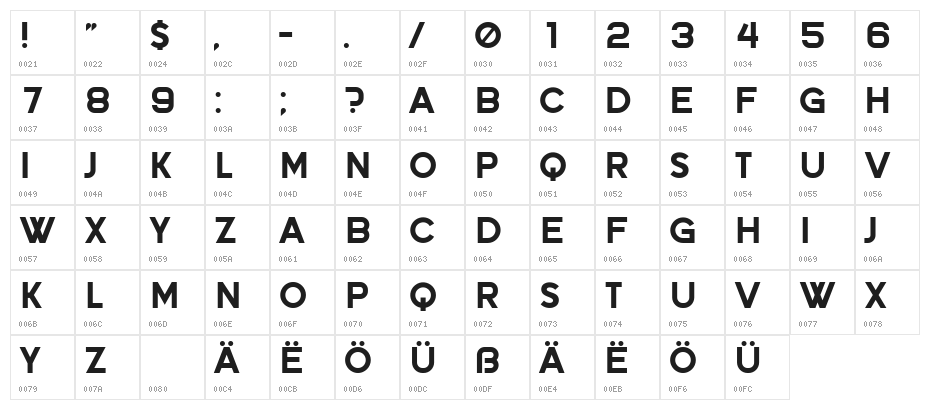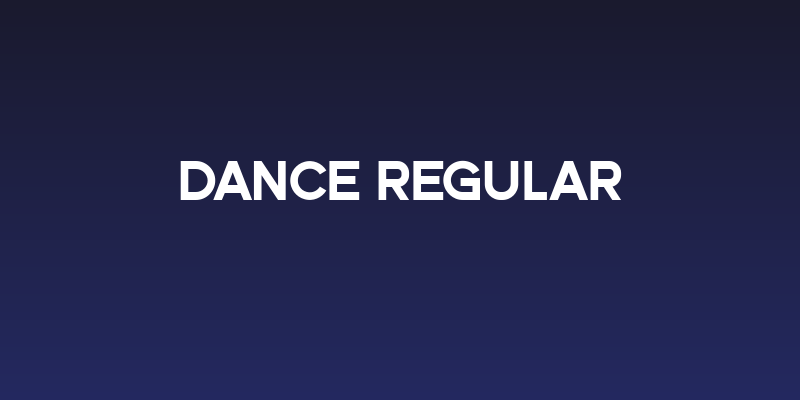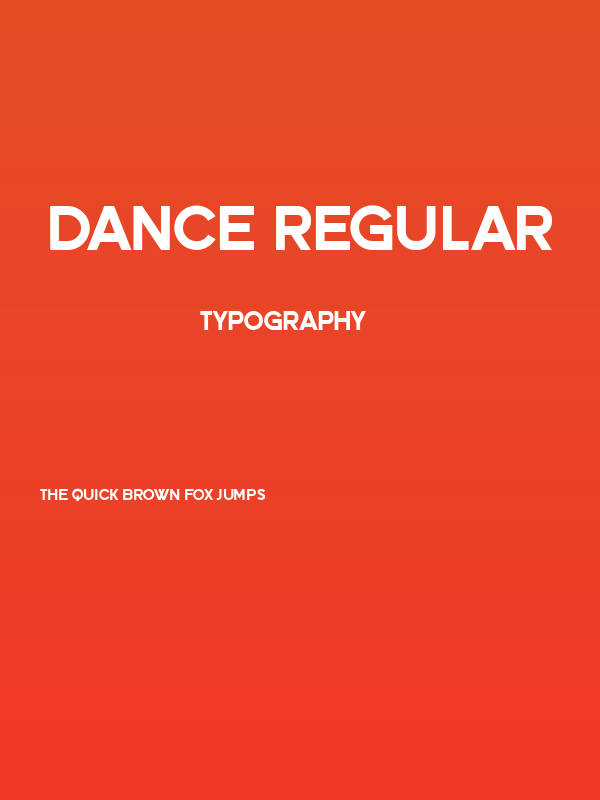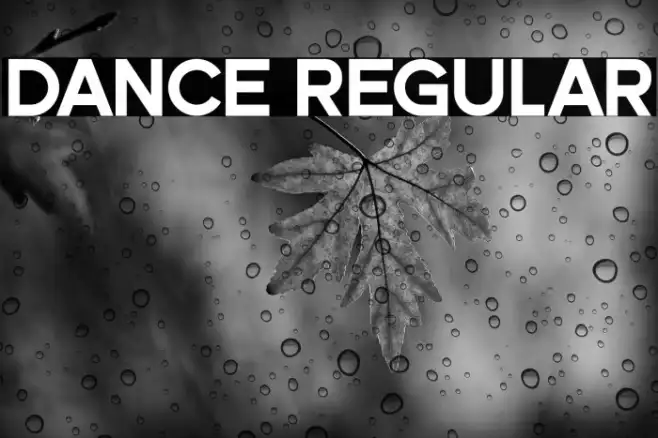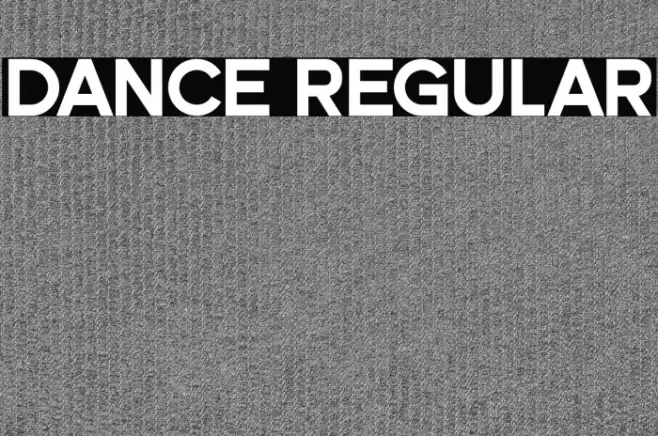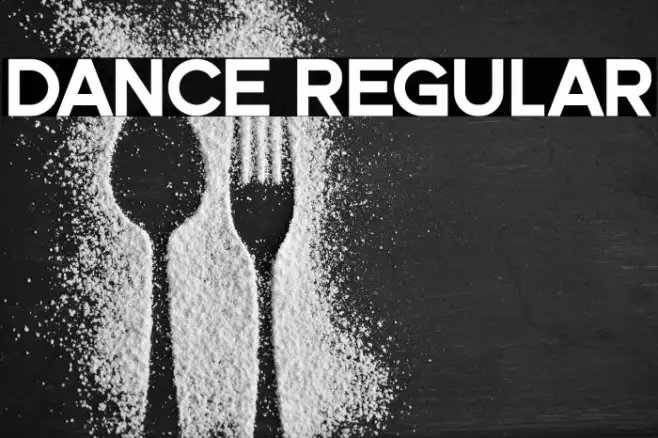
Dance Regular Font
Dance Regular Description
This font features a bold and modern aesthetic with clean lines and geometric shapes. The uppercase letters are uniform in height, creating a strong visual impact. The numerals and special characters maintain the same boldness, ensuring consistency throughout. The overall design is sleek and contemporary, making it suitable for various digital and print applications. Its simplicity and clarity make it highly legible, even at smaller sizes, while the boldness ensures it stands out in larger formats.